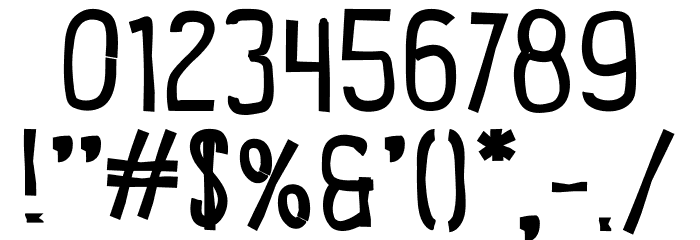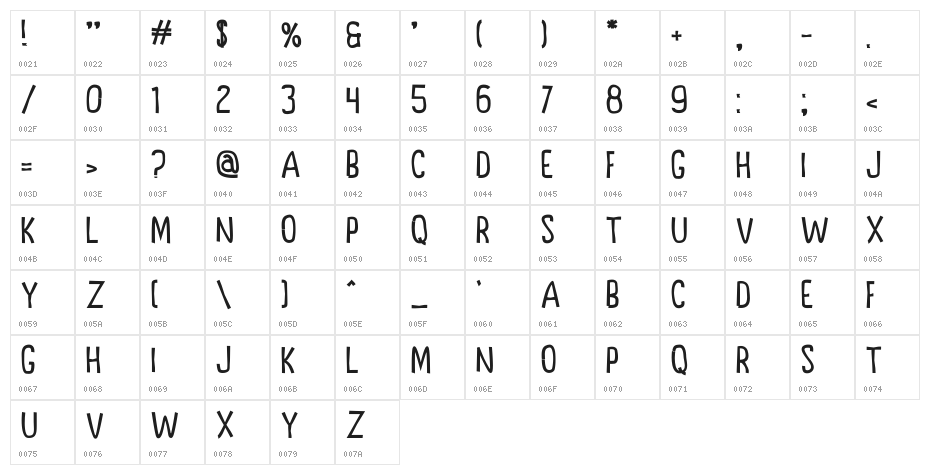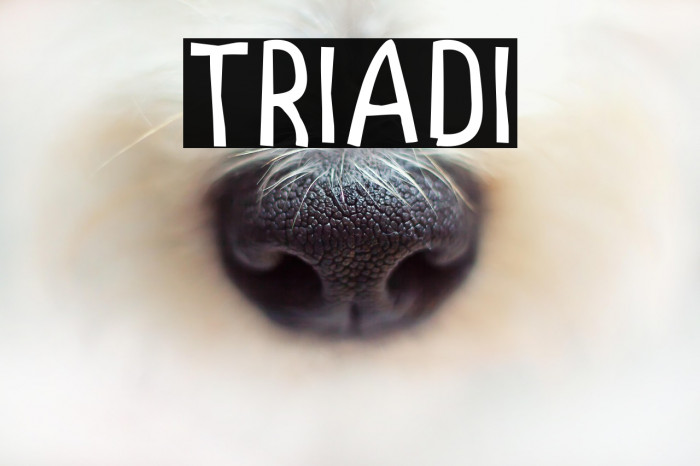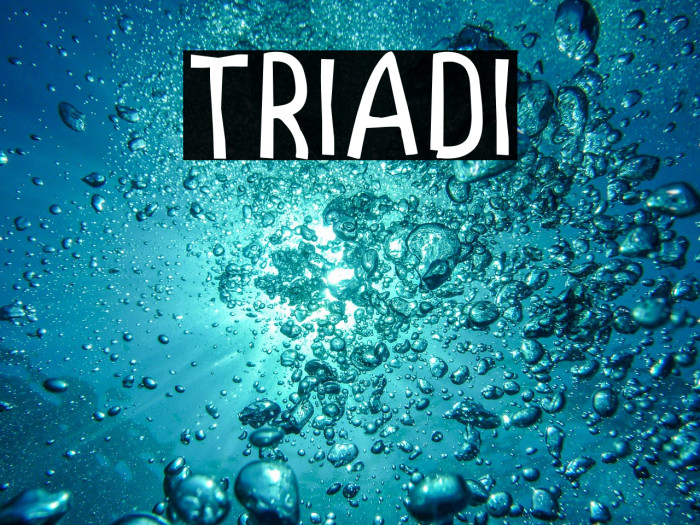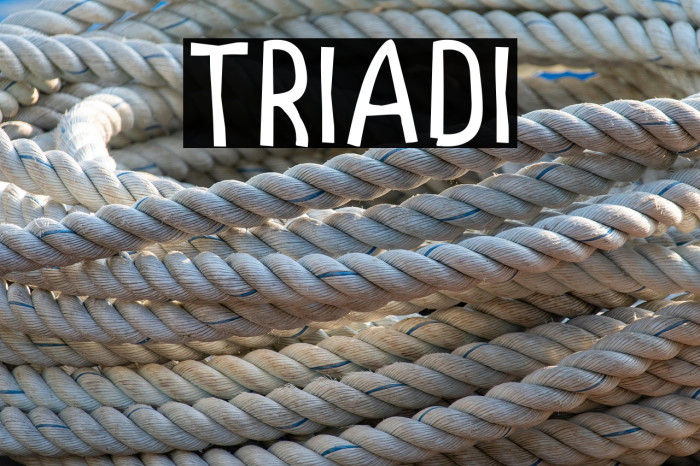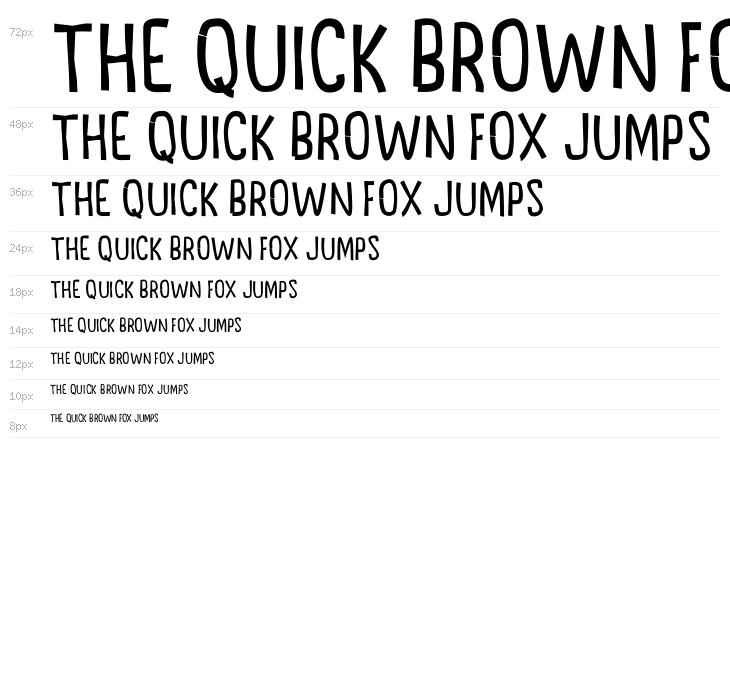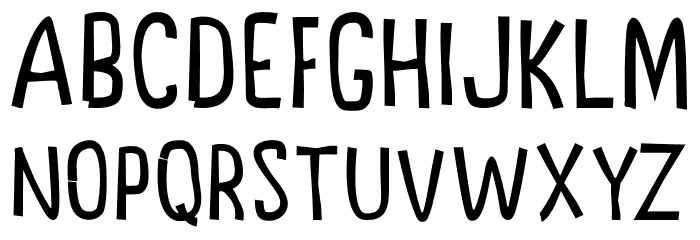
Triadi Font
Triadi Description
This font features a playful and slightly irregular style, characterized by its hand-drawn appearance. The letters are bold and have a casual, informal vibe, with varying stroke widths that add a dynamic and lively feel. The uppercase and lowercase letters maintain a consistent style, with rounded edges and a slightly condensed form. The numerals and special characters follow the same aesthetic, ensuring a cohesive look across all glyphs. This font's unique personality makes it stand out, offering a friendly and approachable tone.